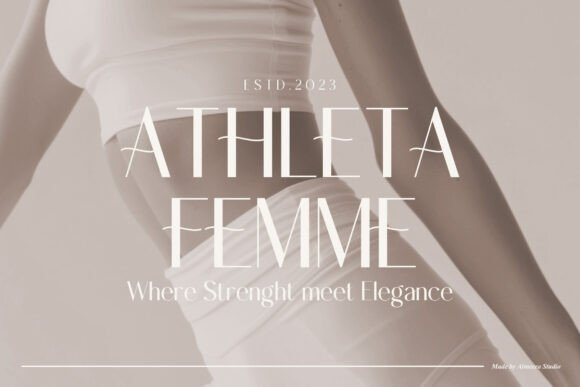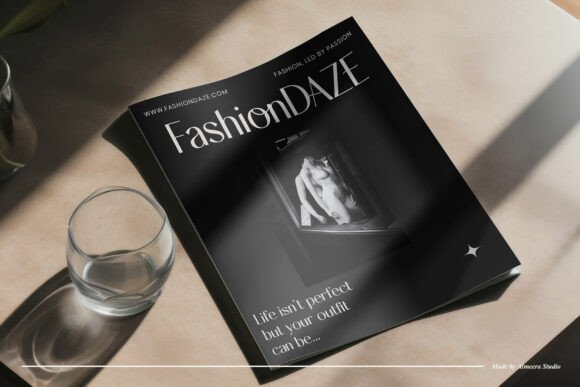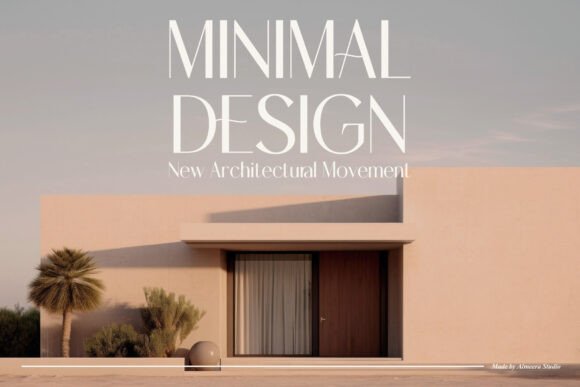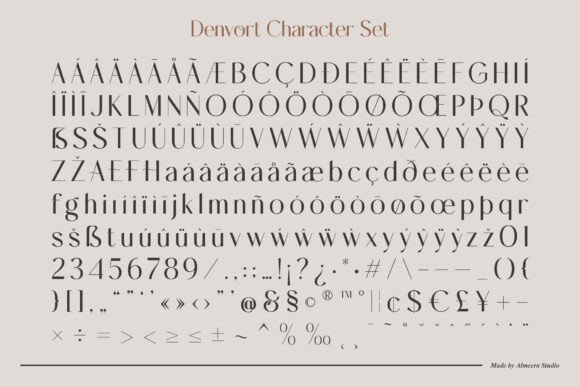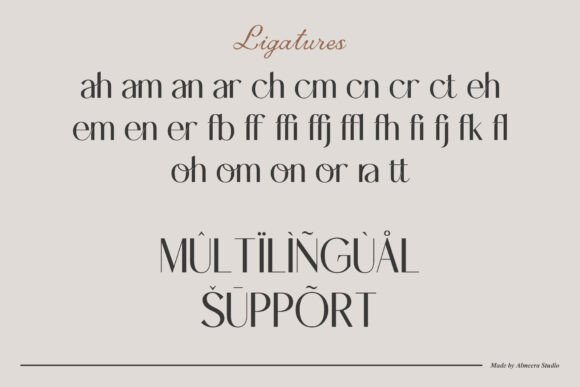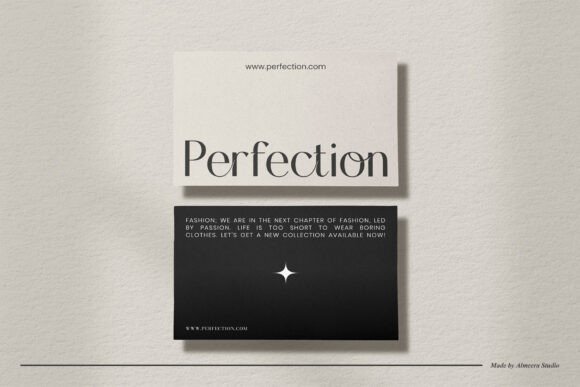
Introducing Denvort Font: Elevate Your Designs with Elegance and Luxury
In the world of design, typography plays a crucial role in conveying the tone and personality of a brand. For designers and crafters seeking to create stunning visual identities, Denvort Font is an exceptional choice. This elegant and classy serif font is meticulously crafted to meet the demands of luxury branding and logo designs.
The Essence of Denvort Font
Denvort Font is a masterpiece of typographic design, characterized by its refined and sophisticated aesthetic. Its serif design exudes a sense of tradition and timelessness, while its elegant lines and curves inject a touch of modernity. This font is perfect for designers who aim to create luxurious and high-end visual experiences.
Unleash Your Creativity with Denvort Font
One of the standout features of Denvort Font is its versatility. This font is equipped with a wide range of beautiful and unique ligature and alternate options, allowing designers to experiment with different styles and effects. Whether you’re working on branding projects, logos, social media posts, advertisements, labels, product packaging, photography, wedding designs, watermarks, invitation product designs, or stationery, Denvort Font is an excellent choice.
Key Features of Denvort Font
- Elegant and Classy Design: Denvort Font boasts a sophisticated and refined design, perfect for luxury branding and logo designs.
- Serif Font: Its traditional serif design ensures a sense of timelessness and tradition.
- Ligature and Alternate Options: Denvort Font features a wide range of beautiful and unique ligature and alternate options, allowing designers to experiment with different styles.
- Versatile: Suitable for various design needs, including branding projects, logos, social media posts, advertisements, labels, product packaging, photography, wedding designs, watermarks, invitation product designs, and stationery.
Why Choose Denvort Font?
For designers and crafters seeking to elevate their designs, Denvort Font offers numerous benefits:
- Instant Recognition: Denvort Font’s elegant design ensures instant recognition and recall, making it perfect for branding and logo designs.
- Flexibility: With its wide range of ligature and alternate options, Denvort Font can be adapted to suit various design styles and needs.
- Professionalism: Denvort Font’s sophisticated aesthetic conveys a sense of professionalism and luxury, making it ideal for high-end designs.
Tips for Using Denvort Font
To get the most out of Denvort Font, consider the following tips:
- Pair with Other Fonts: Experiment with pairing Denvort Font with other fonts to create a unique and visually appealing typography.
- Adjust Font Sizes: Adjust font sizes to create visual hierarchy and emphasize key elements in your design.
- Experiment with Ligatures: Take advantage of Denvort Font’s ligature options to add a touch of elegance and sophistication to your design.
Denvort Font is an exceptional choice for designers and crafters seeking to create luxurious and high-end visual experiences. With its elegant and classy design, versatile features, and wide range of ligature and alternate options, Denvort Font is perfect for various design needs. Elevate your designs with Denvort Font and make a lasting impression on your audience.